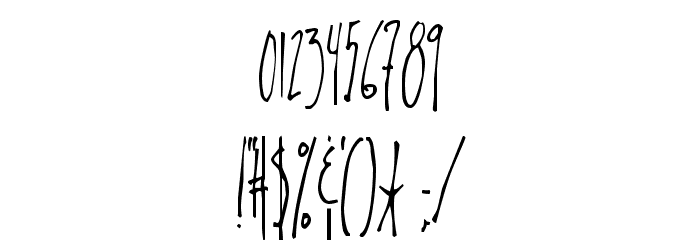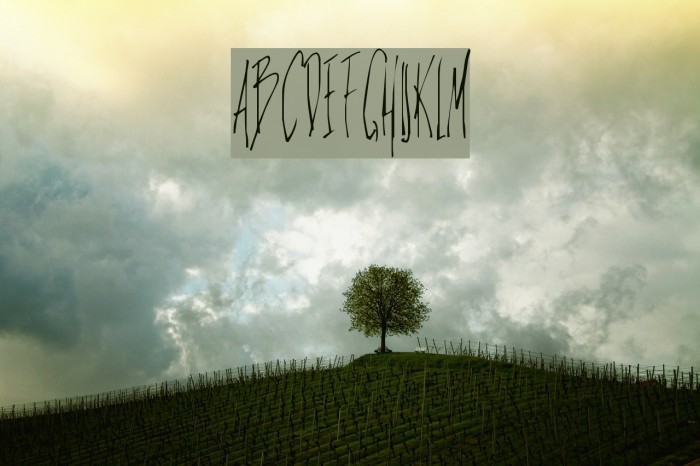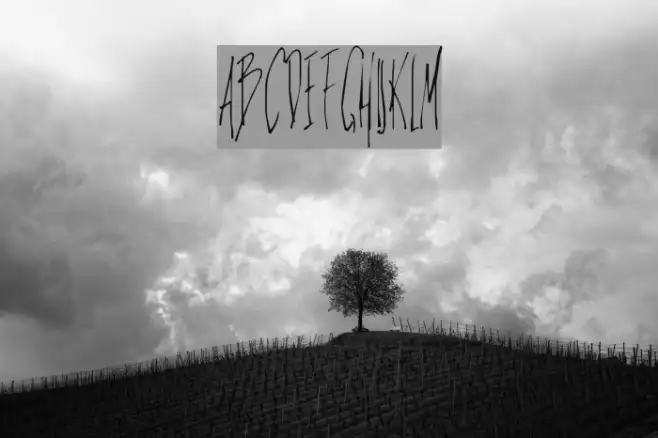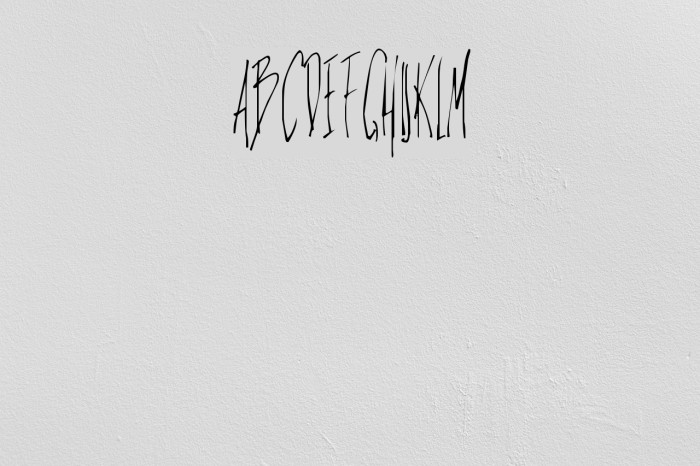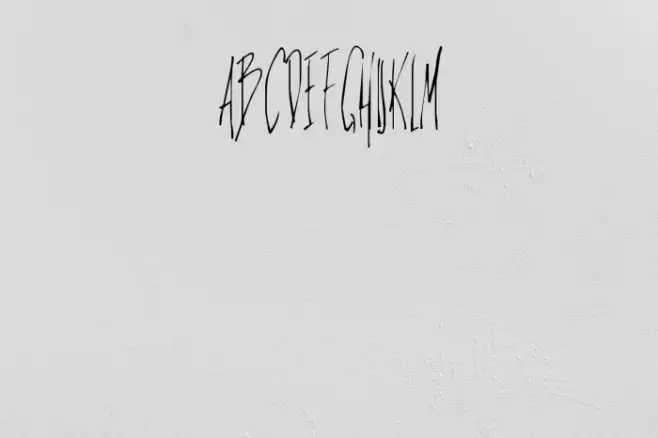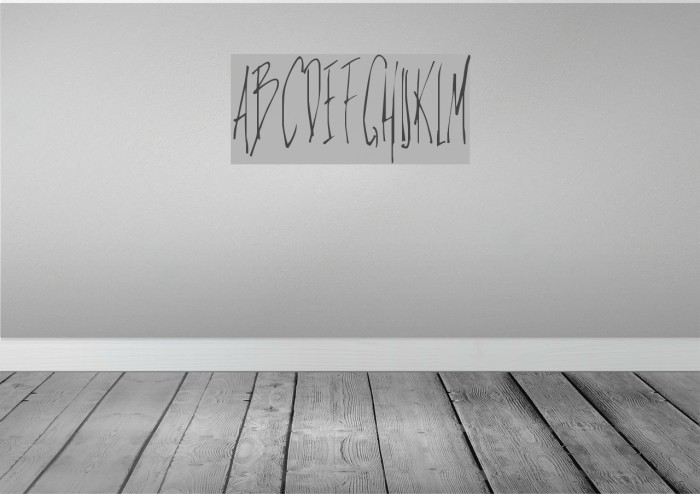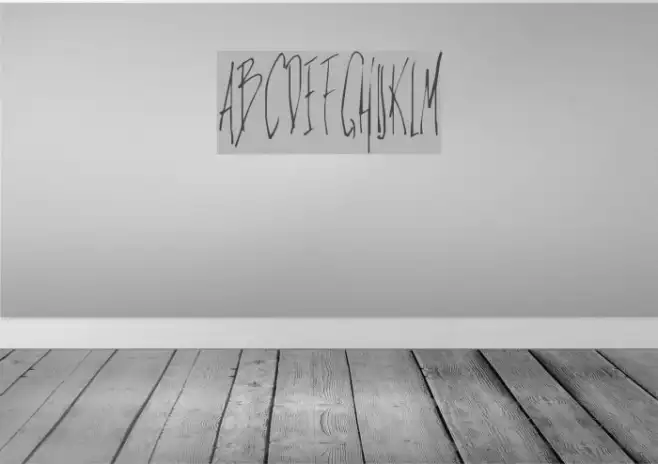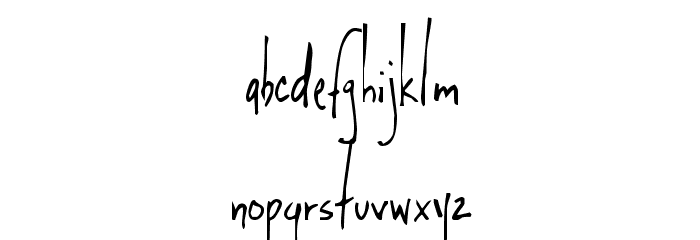
Latté Font
This font features a unique, hand-drawn style with elongated, narrow characters that give it a whimsical and artistic appearance. The uppercase letters are tall and slender, while the lowercase letters maintain a playful, slightly irregular form. The numbers follow the same elongated style, adding to the overall quirky aesthetic. Special characters are creatively designed, enhancing the font's artistic flair. The strokes are thin, contributing to a light and airy feel, while the spacing between characters is relatively tight, emphasizing the font's condensed nature. This font is ideal for projects that require a creative and informal touch.
A whimsical, hand-drawn font with elongated, narrow characters and a playful style.